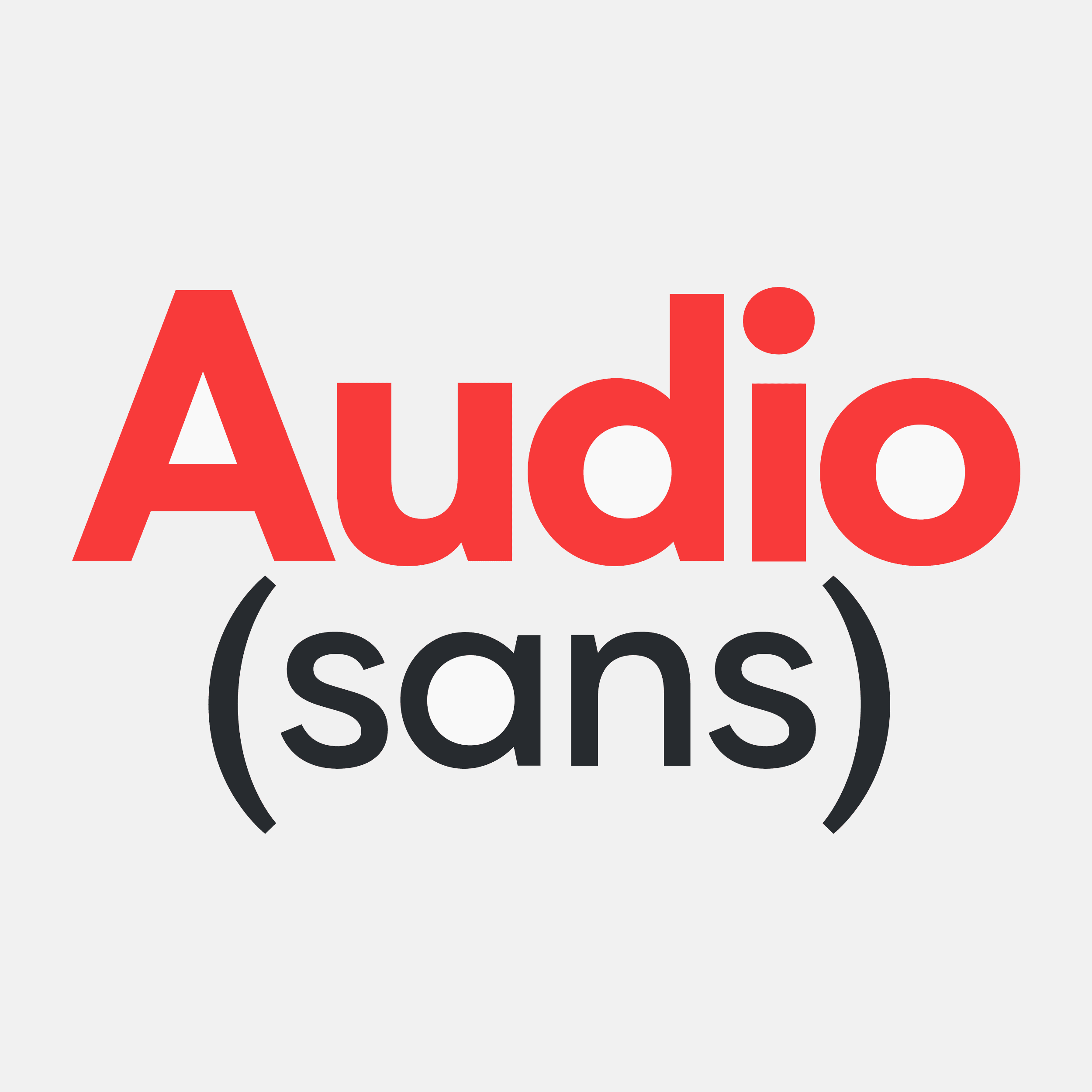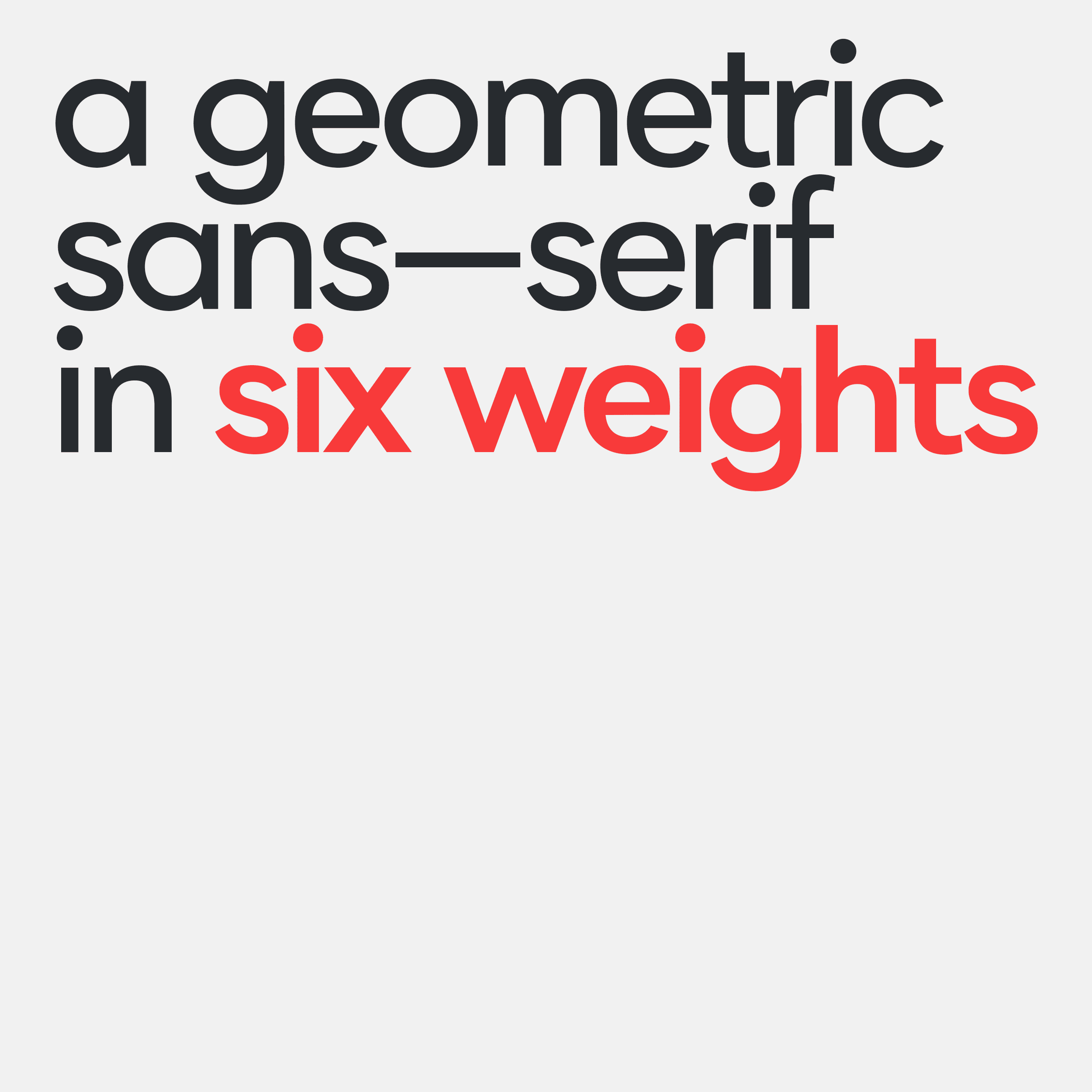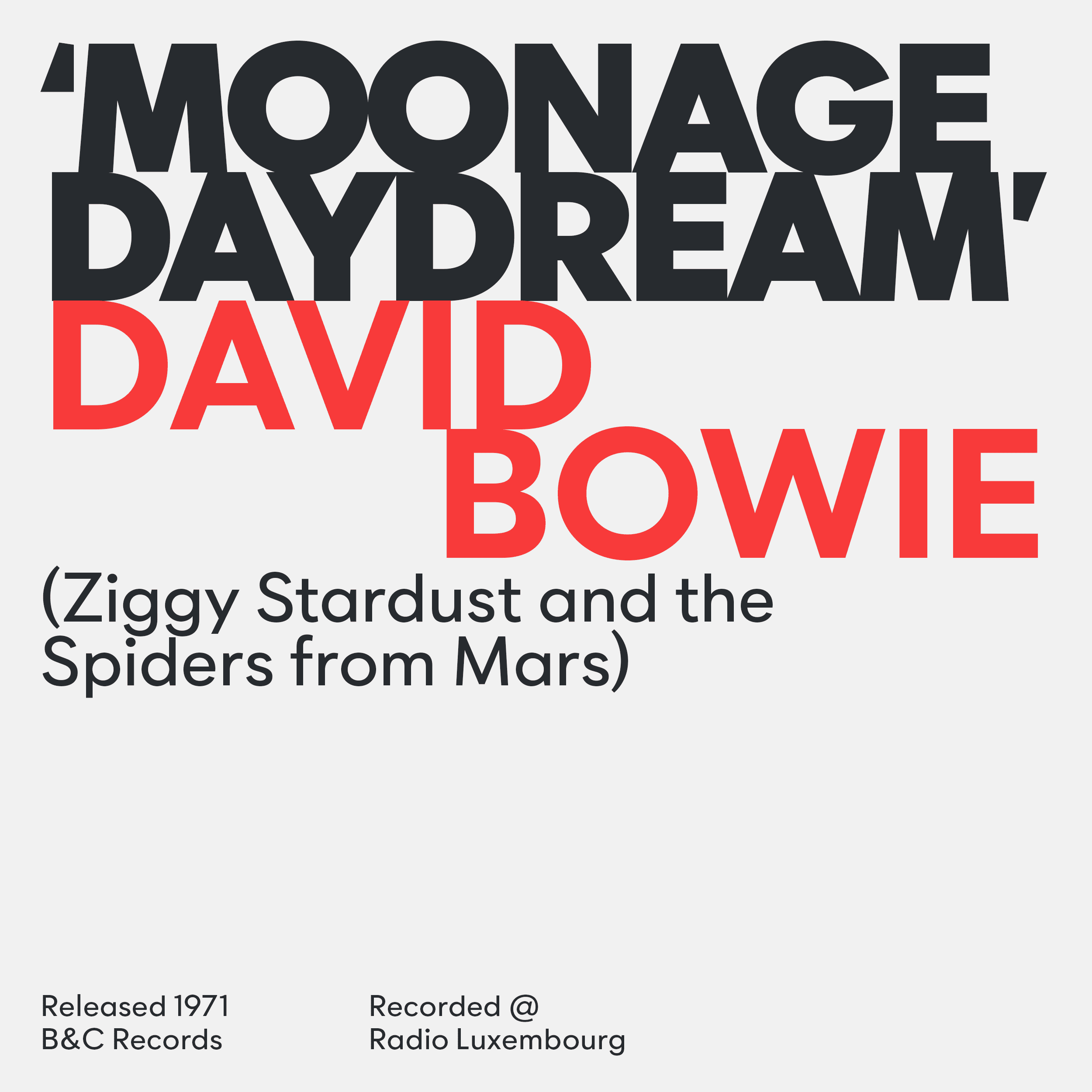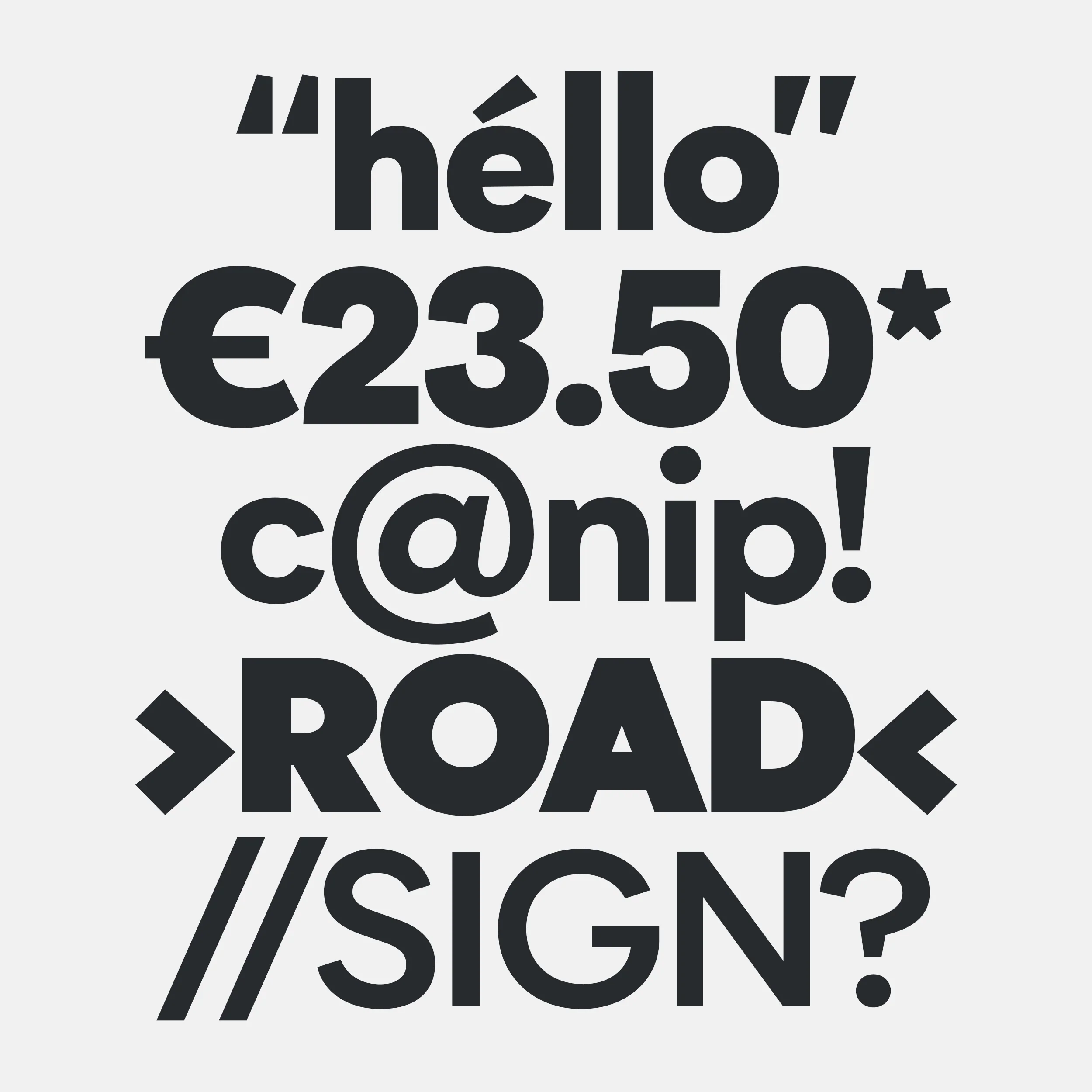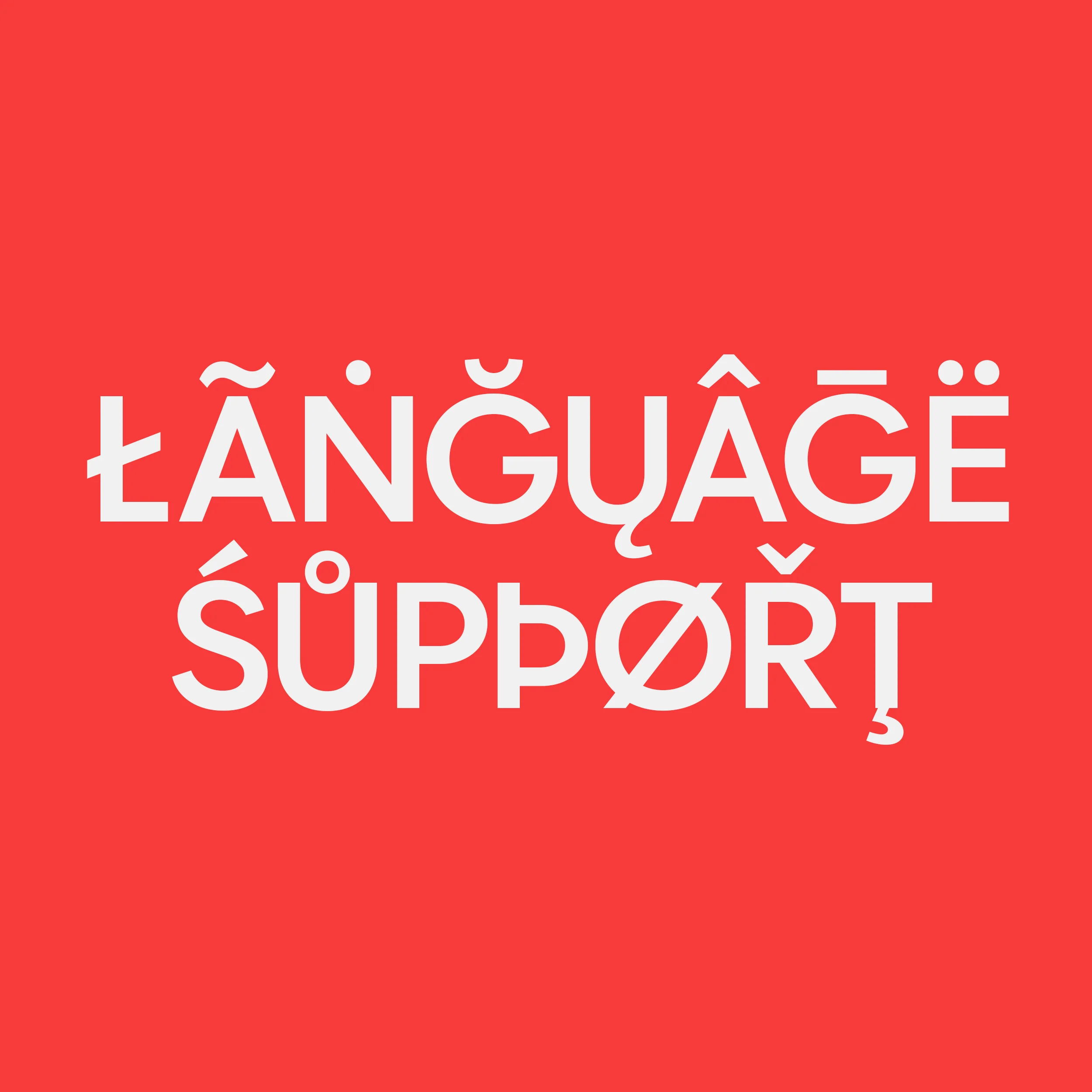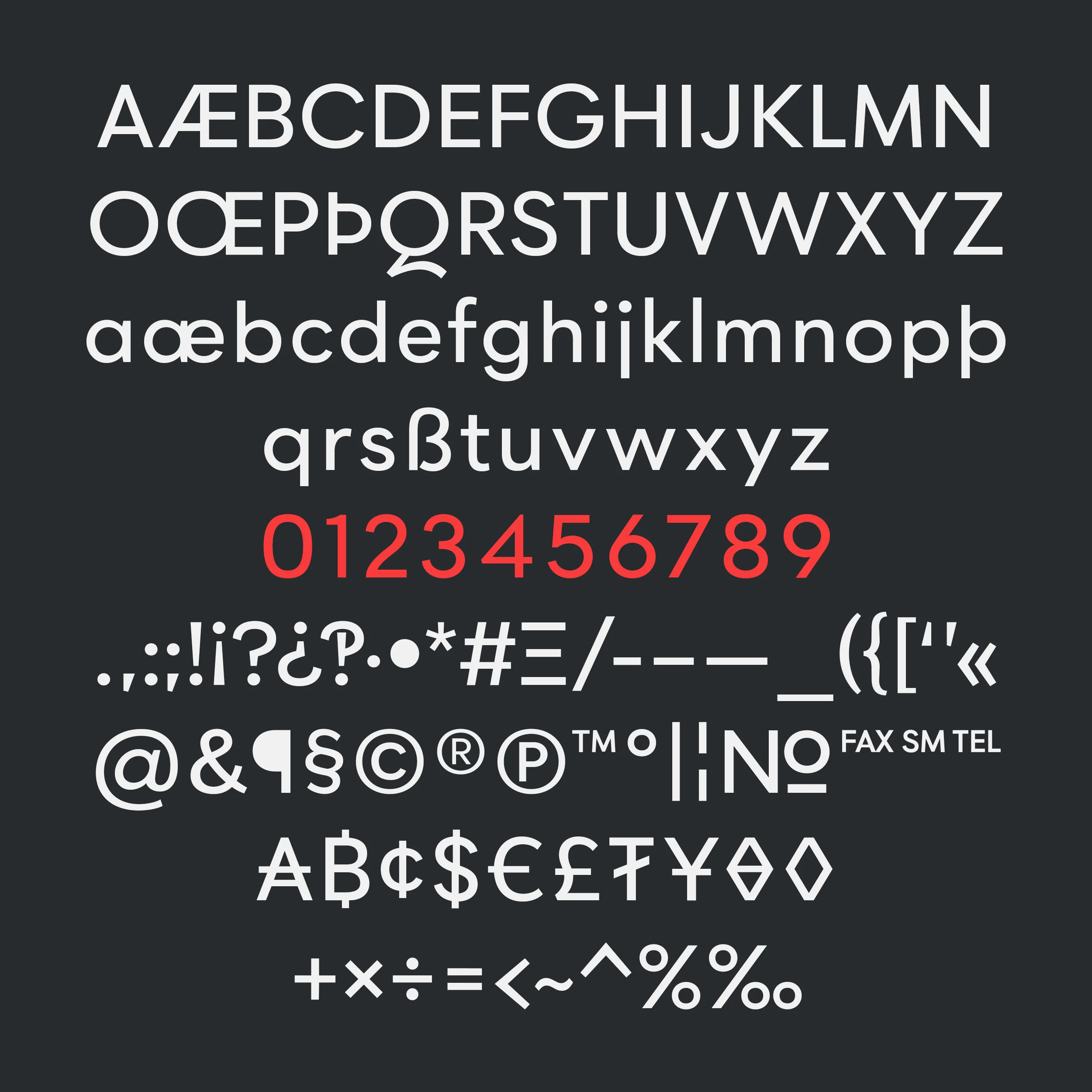
Audio Sans
Audio Sans is a bold geometric sans-serif typeface that draws inspiration from vintage album covers, mid-20th-century record label and radio station logos, and classic industrial design. It also pays homage to the first wave of geometric type design. Despite its retro influences, Audio Sans feels remarkably fresh and contemporary. Its distinctive low x-height gives it a nostalgic flair, while the geometric precision of the letterforms ensures modern appeal.
Audio Sans
Audio Sans is a bold geometric sans-serif typeface that draws inspiration from vintage album covers, mid-20th-century record label and radio station logos, and classic industrial design. It also pays homage to the first wave of geometric type design. Despite its retro influences, Audio Sans feels remarkably fresh and contemporary. Its distinctive low x-height gives it a nostalgic flair, while the geometric precision of the letterforms ensures modern appeal.